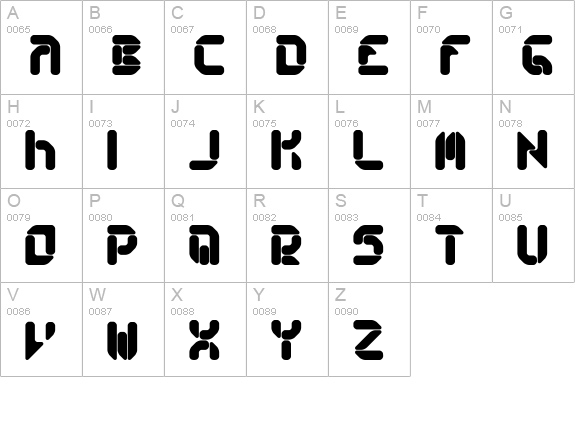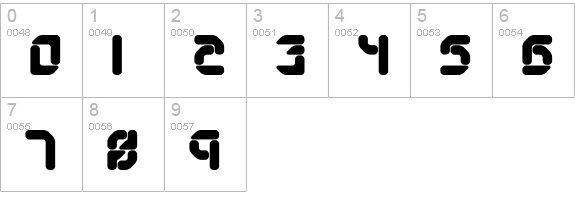
Collective RS BRK Font Details
Collective RS BRK is a modern and stylish font that is perfect for a wide range of design projects. With its clean lines and unique letterforms, this font exudes a sense of sophistication and professionalism. Its versatility makes it suitable for use in both print and digital materials, from logos and branding to websites and social media graphics. One of the best things about Collective RS BRK is that it is available for free download at FontsMarket.com. This means that you can easily access this high-quality font without any cost, making it a valuable addition to your design toolkit. Whether you are a professional graphic designer or someone looking to enhance your projects with a contemporary font, Collective RS BRK is a fantastic choice that won't break the bank. Overall, Collective RS BRK combines elegance with functionality, making it a must-have font for anyone seeking to elevate their design work. Download it for free today and unleash your creativity with this versatile and eye-catching typeface.